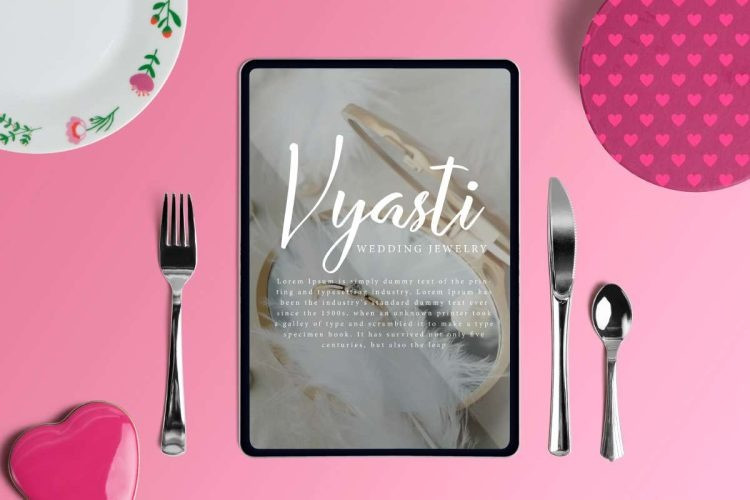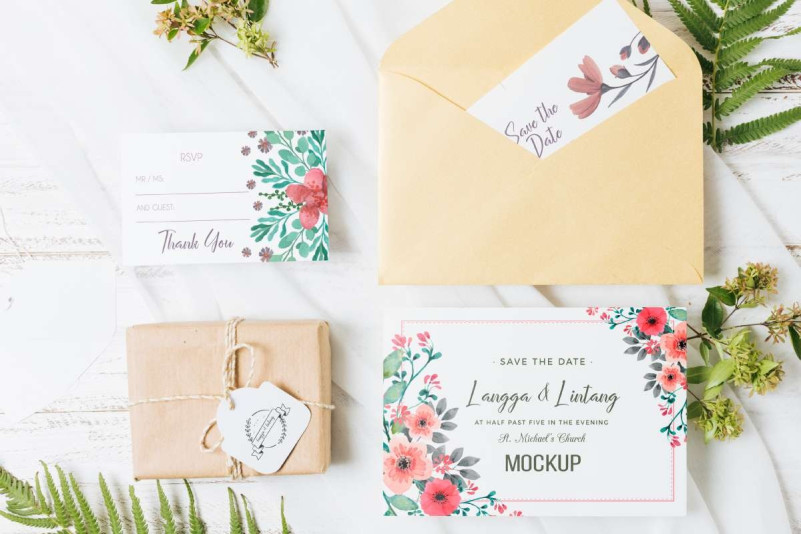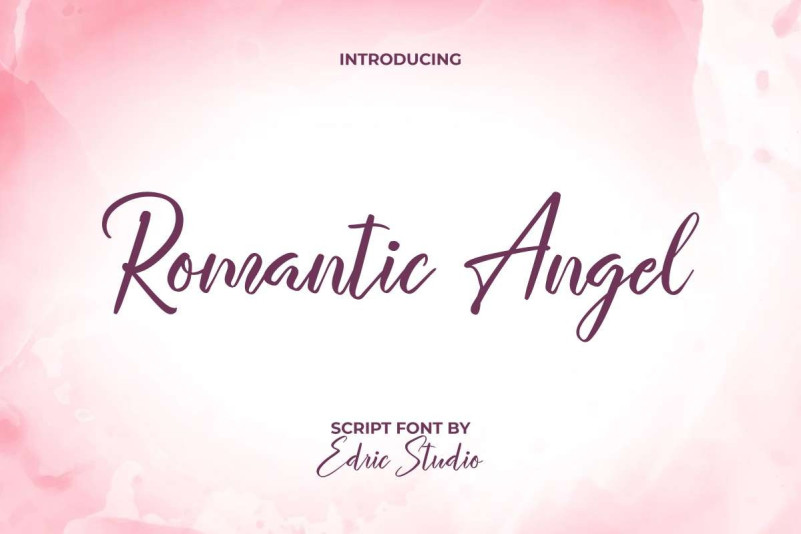
Romantic Angel Font is a beautiful calligraphic script font with a radiance of elegance. This font is inspired by some romantic movies in past time. This font is made by real brush looks to make it natural lines, so the font will be suitable for many projects and purposes, such as invitation, architect brands, authors, crafting, event organizer, furniture, hotel, jewelry, photography, printing, publishing, real estate, restaurant, skincare, spa salon, wedding, writer, and much more.
Romantic Angel Font comes with a full set of Uppercase and Lowercase Basic Characters, Number, a large range of Punctuation and Symbol. It has a stunning characters set, perfectly managed with well spaced and kerning. Romantic Angel Font will be great for any projects (with extended license) including : brand logo, brochure, catalog, cover, invitation, label, menu, product packaging, quote, stationery, sticker, title, watermark, website, etc.
Romantic Angel Font also has Ligature characters options that you can choose and use to make it perfectly bonded and stand out. Ready to use both on Windows machine or Mac with simple installations with multilingual characters supported. It’s tested to work well in the Adobe Apps (Illustrator, Adobe InDesign, Adobe Photoshop) even work on Microsoft Word. PUA Encode Characters means you can access all characters easily – Fully accessible without additional design software.